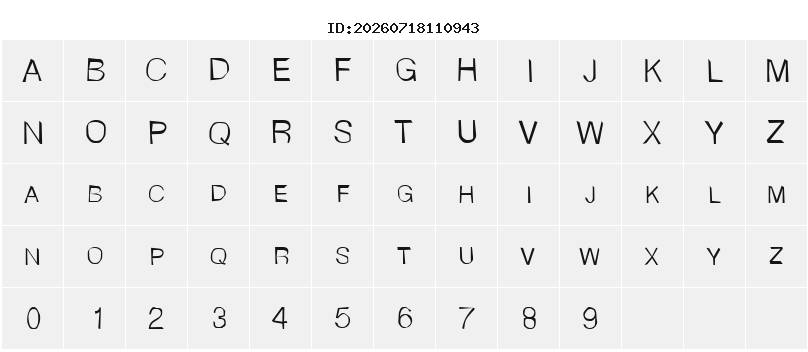
About Catheter In Use.ttf
Catheter In Use.ttf is a modern, elegant sans-serif font designed for ultimate readability and visual harmony. Perfect for branding, headlines, web design, and print materials.